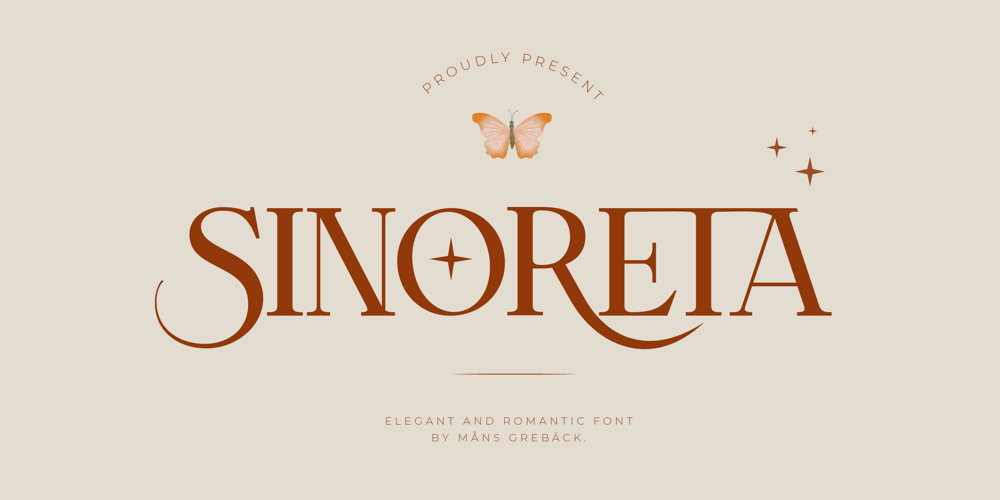
Sinoreta Font Family was designed by Måns Grebäck and published by Mans Greback. Sinoreta contains 4 styles and family package options. Sinoreta is a classic serif font with a bold retro style that adds sophistication and elegance to any design. The decorative alternates add a touch of uniqueness, making Sinoreta perfect for projects that require a bold and proper typographic presence. Whether it’s branding, logos, headlines, or editorial designs, Sinoreta will bring a timeless and tasteful touch to your work. This font is designed by Mans Greback in 2023 and combines traditional serif style with modern design elements. Choose Sinoreta for a retro, elegant and versatile font that will make your designs stand out.The Sinoreta family consists of four high-quality fonts:Regular, Italic, Bold and Bold ItalicThe font is built with advanced OpenType functionality and has a guaranteed top-notch quality, containing stylistic and contextual alternates, ligatures and more features; all to give you full control and customizability. It has extensive lingual support, covering all Latin-based languages, from Northern Europe to South Africa, from America to South-East Asia. It contains all characters and symbols you’ll ever need, including all punctuation and numbers.